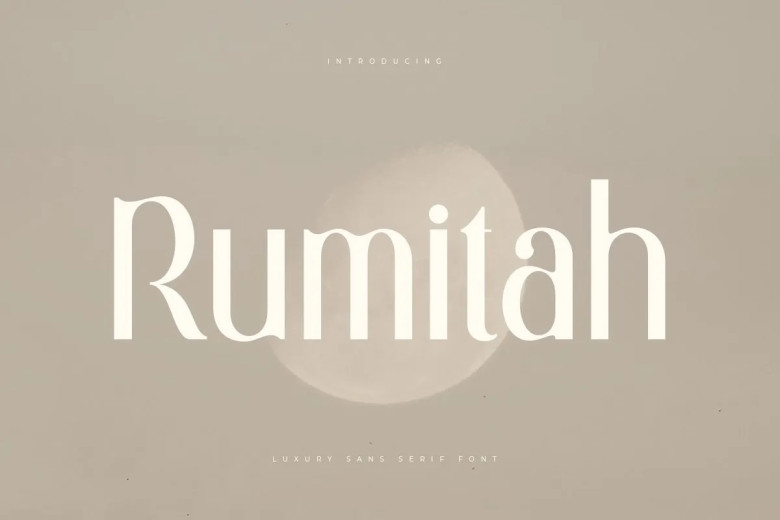
Rumitah Font
Rumitah is a Sans Serif Font for high-end fashion brand and logo – stylishly Elegant in spirit, blending creativity and Quality craftwork to deliver outstanding effect. It is ideal for designers or product owners who are looking for solutions to modernize and give a trendy look to their work.
And particularly for Rumitah font, we have made all kinds of characters that enable you to create limitless variations as the imagination takes flight.
Rumitah Sans Serif Font